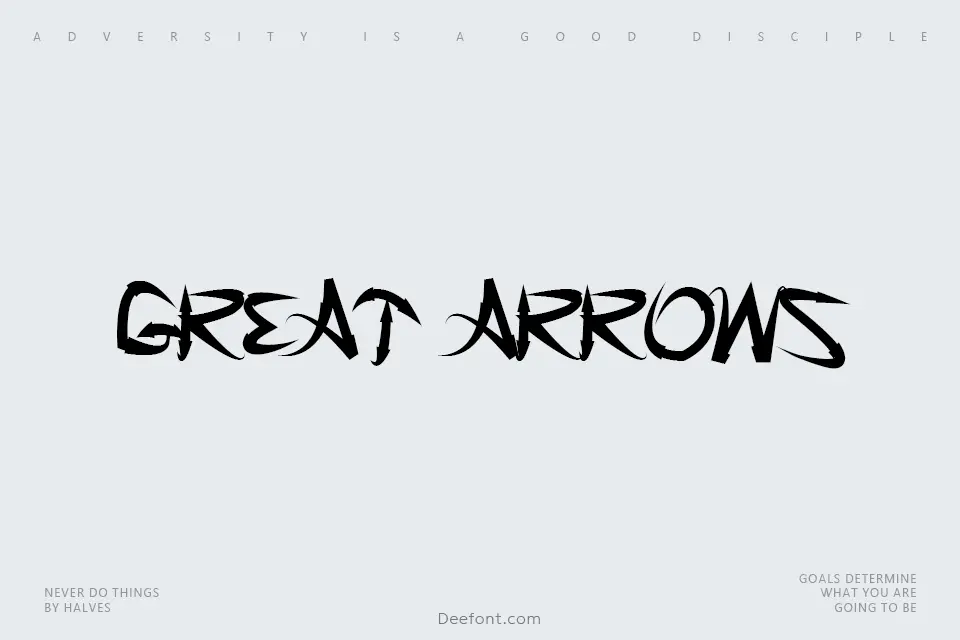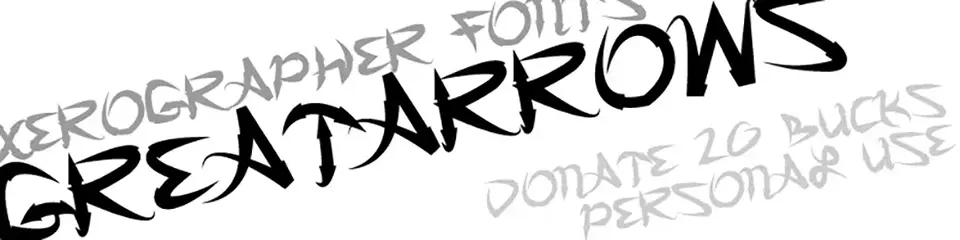
Great Arrows Font
Great Arrows is a distinctive donationware graffiti script font created by Xerographer Fonts that combines bold arrow-style letterforms with dynamic, street-inspired aesthetics. Perfect for eye-catching headlines, poster designs, and creative branding projects, this versatile typeface features 65 unique glyphs that deliver impact and personality to any design composition.